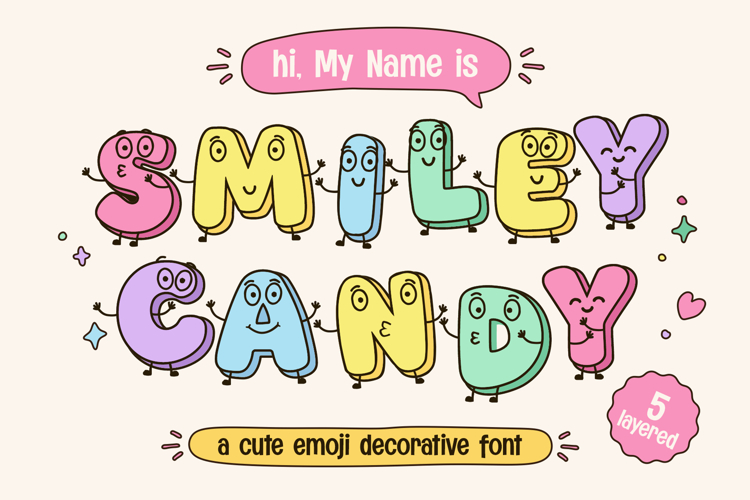
Smiley Candy | Cute Emoji Decorative Layered Font
Smiley Candy is a playful and expressive cute emoji decorative font designed to bring joy, creativity, and cheerful energy into every design project. Inspired by kawaii doodles, emoji illustrations, cartoon lettering, and playful children’s graphics, this font combines adorable personality with bold display typography. With its layered system and charming character shapes, Smiley Candy creates a fun visual experience that instantly captures attention.
This decorative display font comes with 5 layered styles: Regular, Outline, Extrude, Outer, and Decorative. Each layer is carefully crafted to work individually or combined together for endless creative possibilities. The Regular style delivers bold rounded characters with soft and friendly forms. The Outline style adds hand-drawn contour details for a playful cartoon appearance. The Extrude style creates dimensional depth and a layered 3D effect. The Outer style enhances visibility with bold surrounding shapes, while the Decorative style adds expressive emoji-inspired accents that make the typography feel alive and full of personality.
Smiley Candy includes uppercase characters, numbers, and punctuation that are designed consistently with the playful theme. Every letter has a unique hand-drawn feel while still maintaining readability. The rounded structures and expressive details create a cheerful mood suitable for modern creative projects.
This font also includes multilingual support, making it suitable for international projects and broader audiences. Designers can use Smiley Candy for multilingual branding, educational materials, social media graphics, and digital campaigns while maintaining the same fun and engaging visual identity.
Smiley Candy is highly suitable for children’s products, toy packaging, birthday invitations, classroom posters, stickers, social media content, YouTube thumbnails, branding projects, merchandise, and cute-themed visual identities. Its emoji-inspired design style makes it especially appealing for projects that require warmth, positivity, and a playful atmosphere.
The layered system gives designers flexibility to create colorful typography compositions. By combining Outline, Extrude, and Decorative layers, users can create dimensional text effects that stand out in posters, logos, and promotional graphics. The font works exceptionally well with pastel palettes, vibrant colors, and kawaii-inspired illustrations.
One of the strongest aspects of Smiley Candy is its ability to create emotional connection through typography. The cute expressions and rounded forms instantly make designs feel more friendly and approachable. This makes the font ideal for family-friendly branding and cheerful visual campaigns.
The font is optimized for both print and digital use. Whether used on large banners, product packaging, mobile graphics, or social media content, Smiley Candy maintains strong visual quality and readability.
Smiley Candy can also function as a centerpiece in modern creative layouts. Its decorative nature naturally draws attention, helping headlines and key visual elements become more memorable. Designers can pair it with simple sans serif fonts to maintain layout balance while allowing the display typography to shine.
From a stylistic perspective, Smiley Candy blends cartoon aesthetics, emoji culture, and modern decorative typography into one cohesive design system. This fusion creates a versatile font that feels trendy, youthful, and visually engaging.
Overall, Smiley Candy is more than just a decorative display font. It is a playful creative tool designed to help designers create joyful, colorful, and memorable visual experiences across a wide range of projects.